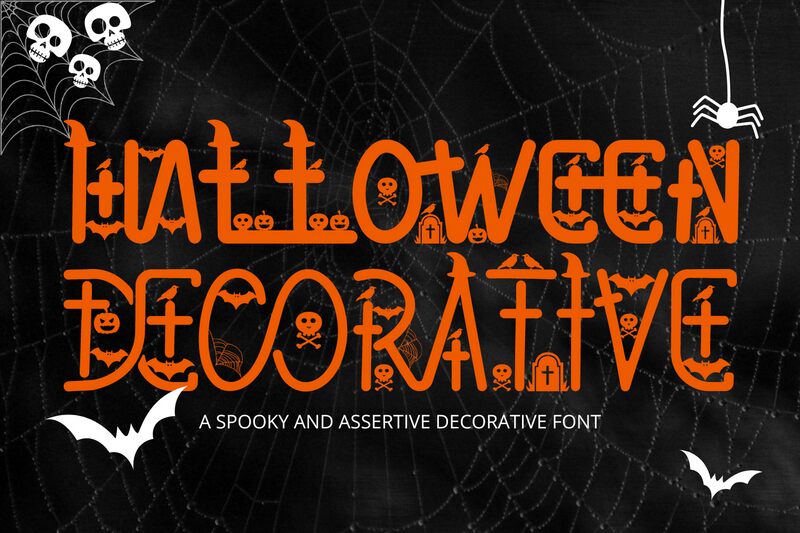
Halloween Decorative font family comes with a magical, spooky appearance dedicated to the night of witches and magic. It was designed by 177Studio in two distinct font styles. The luxury-looking set is made of uppercase letters that are charming, creative, and enchanting. With clean and bold lines, this font makes sure to grab attention and be clearly visible from any distance.
While it’s obvious to use for Halloween invitations, posters, and flyers, the typeface is versatile for use at any time of the year. Related occasions and context include horror films, ghost stories books, spooky toy packagings, and social media posts as well.